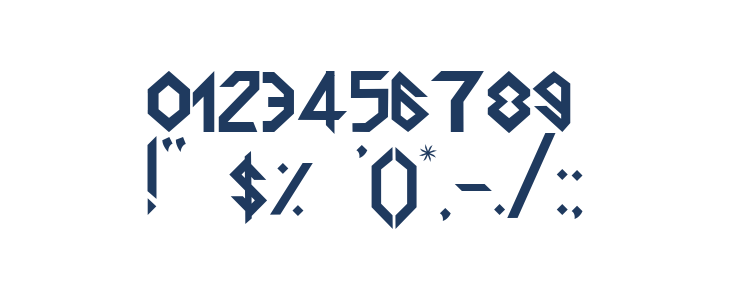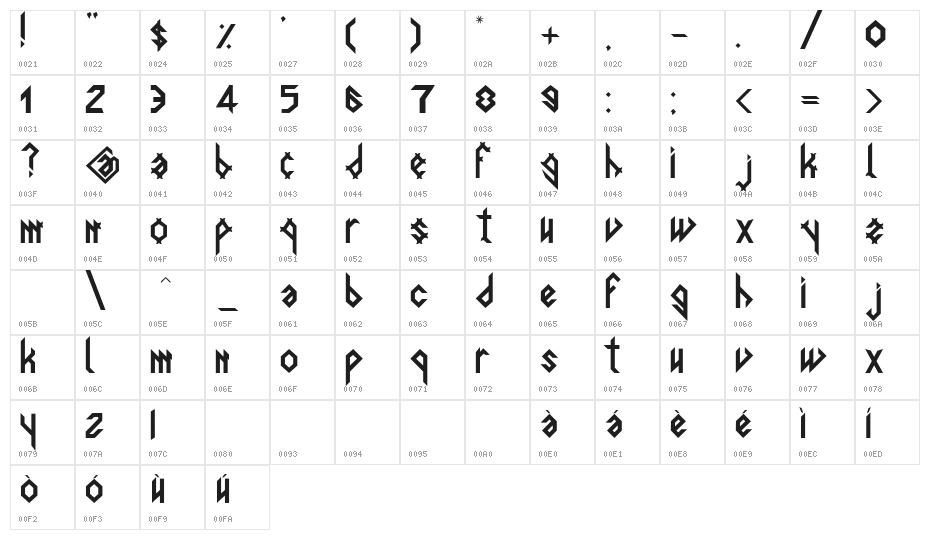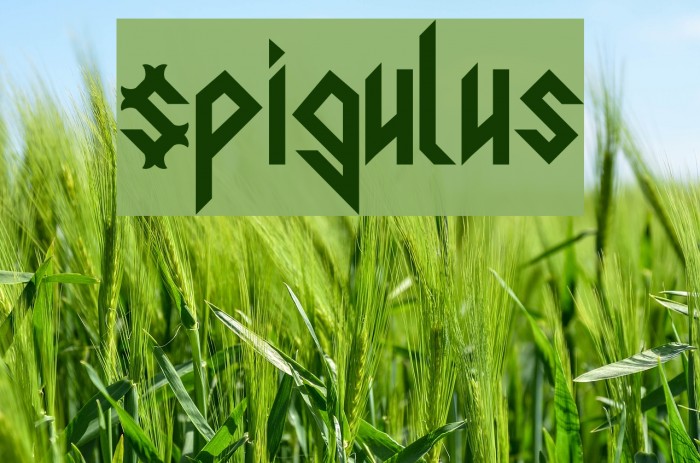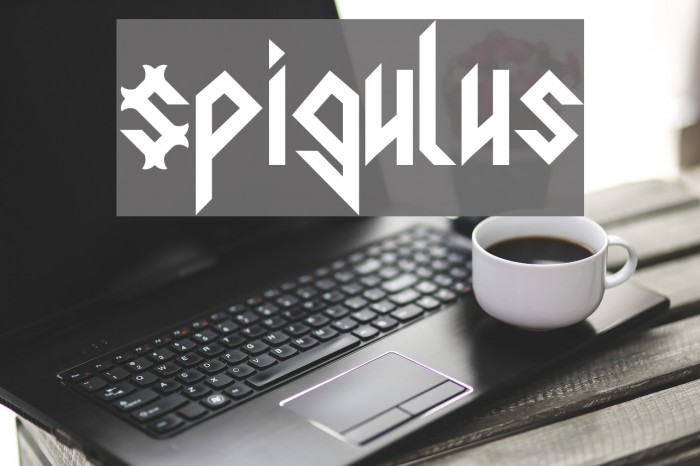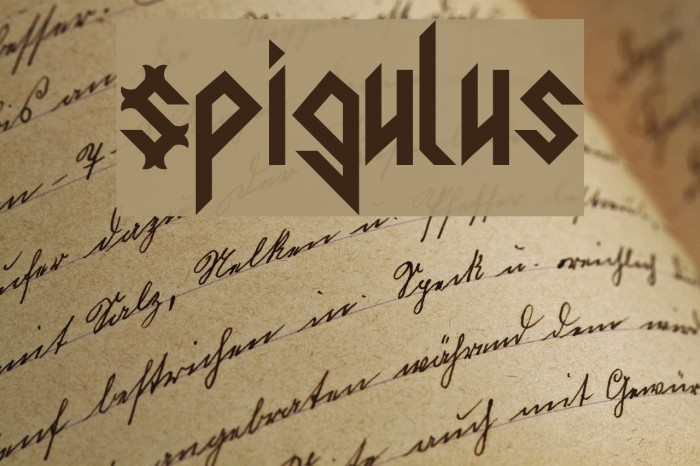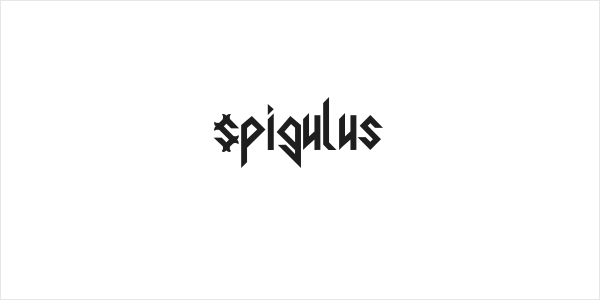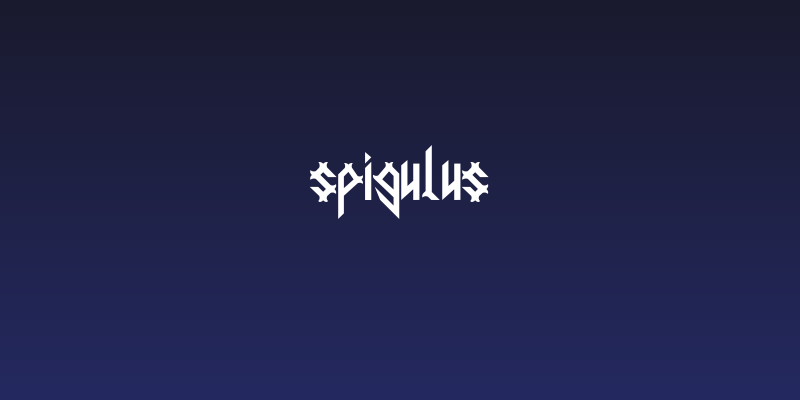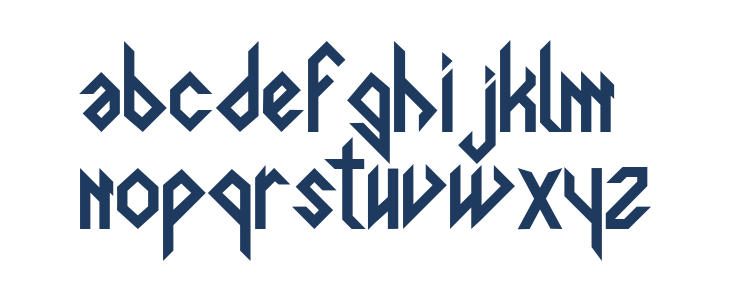
Spigulus Font
Spigulus Description
This font features a bold, angular design with sharp edges and geometric shapes, creating a striking and modern appearance. The characters are highly stylized, with a unique blend of Gothic and futuristic elements. The uppercase and lowercase letters maintain a consistent style, with exaggerated serifs and pointed terminals. The numerals and special characters follow the same design principles, ensuring a cohesive look across all glyphs. This font's distinct appearance makes it ideal for projects that require a bold and eye-catching typeface.
| Proposed Projects | Ideal for branding, posters, album covers, and video game graphics. |